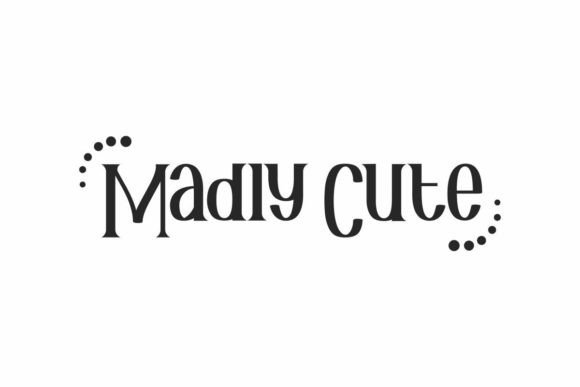
Introducing Madly Cute Font - A Timeless Serif Display Font Exuding Elegance and Distinction
Embark on a typographic journey with Madly Cute Font, a captivating serif display font crafted by the esteemed NihStudio. This font is an ode to timeless elegance, boasting unique characters that exude an air of sophistication and charm.
With its graceful curves and intricate details, Madly Cute Font is the perfect choice for those seeking to add a touch of refinement to their creative endeavors. Whether you're a seasoned designer or just starting your creative journey, this font is sure to become an indispensable tool in your font arsenal.
Express Yourself with Artistic Finesse
Unleash your creative potential and let Madly Cute Font elevate your designs to new heights. Imagine your words taking on a life of their own, imbued with the elegance of this serif masterpiece. From art quotes and blog headers to craft designs and wedding invitations, Madly Cute Font effortlessly adapts to a myriad of creative projects.
Create Designs That Stand Out
In a world saturated with visual noise, it's the details that truly make a difference. Madly Cute Font is a breath of fresh air, offering a distinctive typographic style that sets your designs apart from the mundane. Its unique characters dance across the page, captivating your audience and leaving a lasting impression.
A Versatile Canvas for Your Creative Vision
The versatility of Madly Cute Font is truly remarkable. Whether you're crafting logos that exude professionalism, designing modern stationery that oozes sophistication, or creating titles that demand attention, this font seamlessly adapts to your creative vision. Its versatility makes it the perfect choice for both personal and professional projects.
Experience the Madly Cute Difference
Take your designs to the next level with Madly Cute Font. Discover the joy of creating with a font that combines elegance, versatility, and timeless appeal. Add Madly Cute Font to your collection today and watch your creative projects flourish.